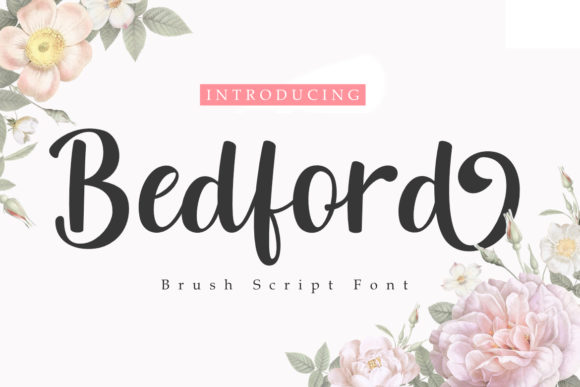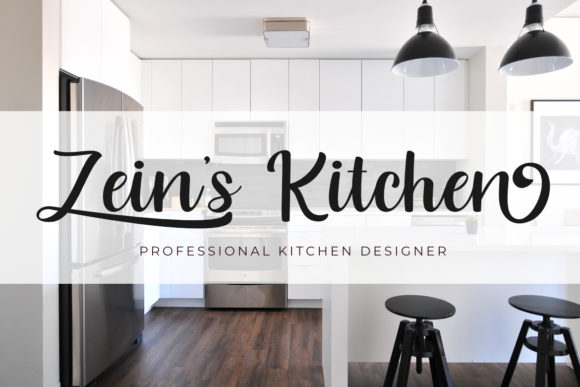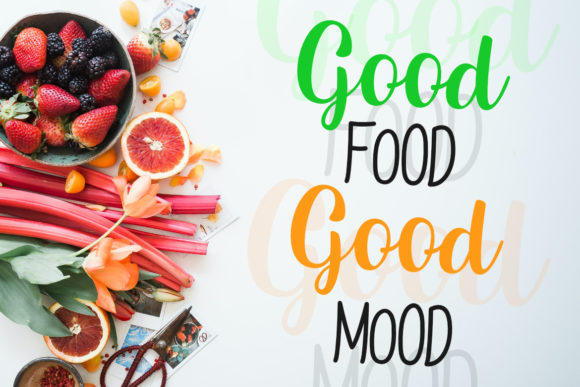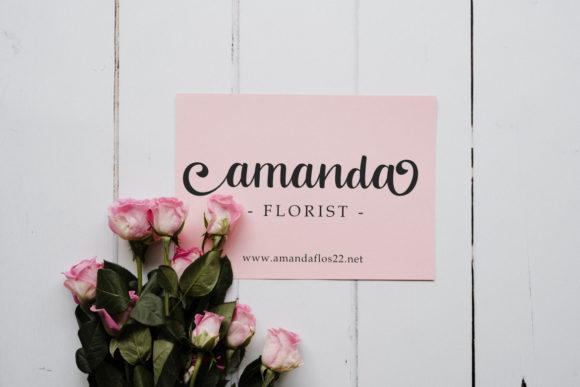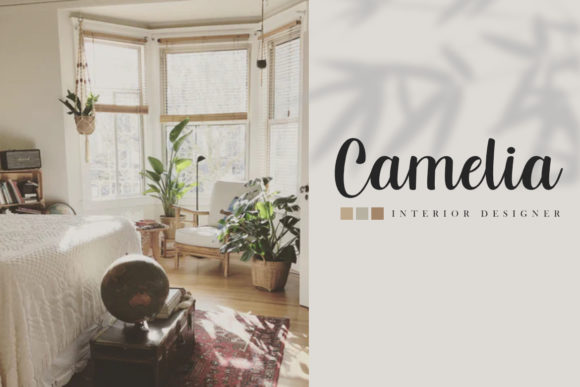
Bedford Font
About Bedford Font
Bedford is a delicate, elegant and flowing handwritten font. It has beautiful and well balanced characters and as a result, it matches a wide pool of designs. Add it to your most creative ideas and notice how it makes them come alive!